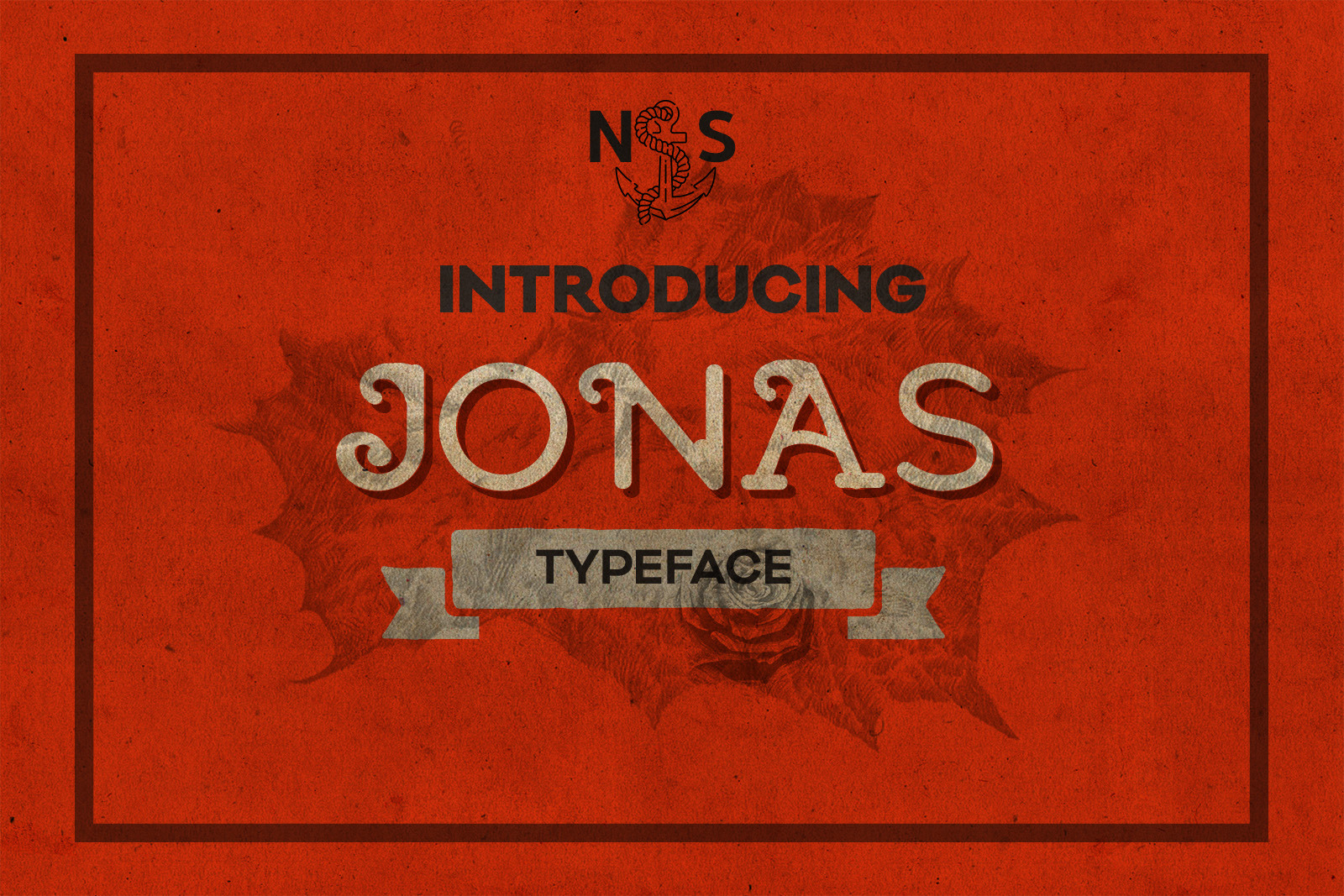
Introducing Jonas A display vintage typeface available in three different versions Regular,Inked and Shadow.Suitable for logotypes,illustrations and lettering,product packaging,quotes and much more.The font supports multiple languages and comes in two different styles -Normal and Bold. The rounded corners also add a special flavour to the typeface giving it an inky feel.